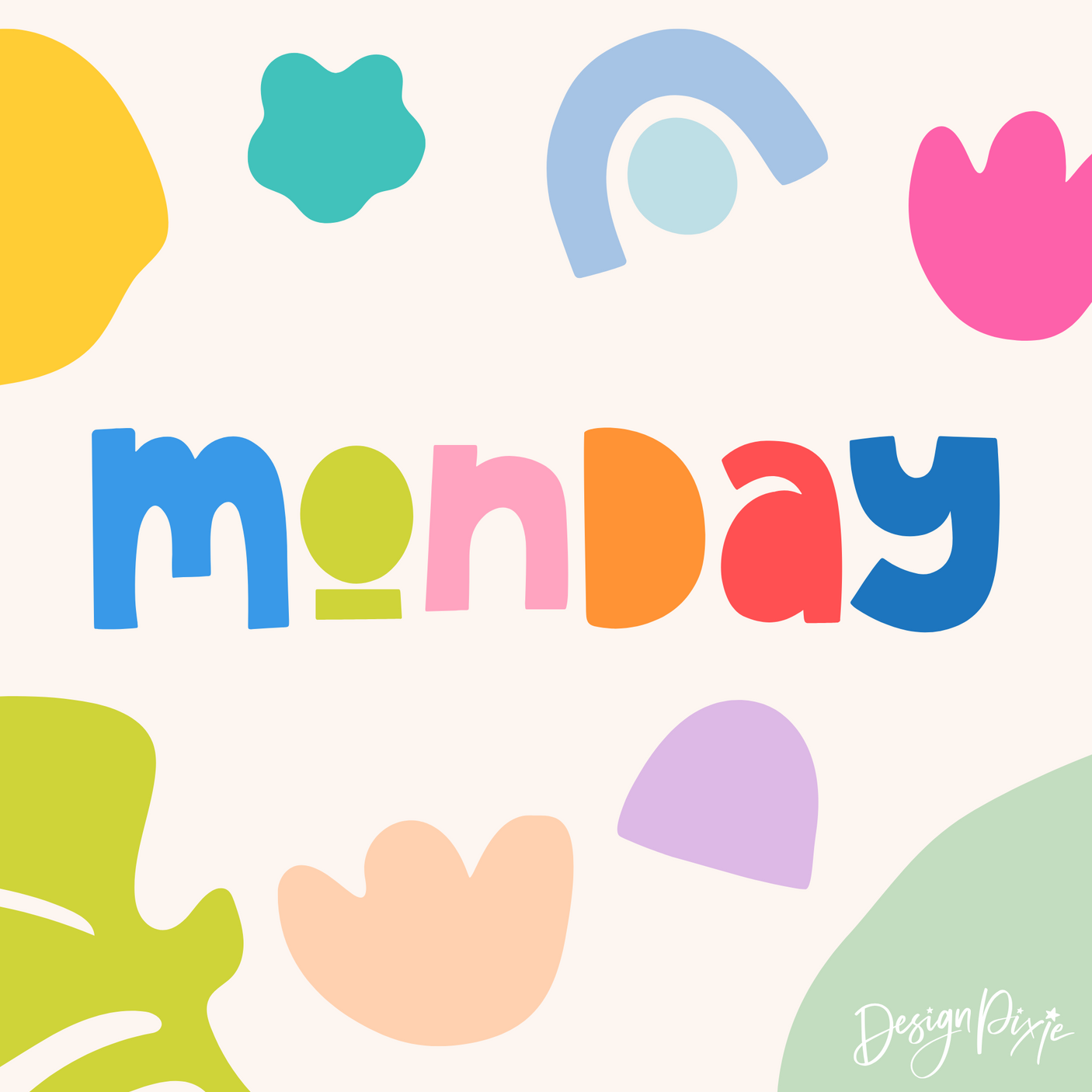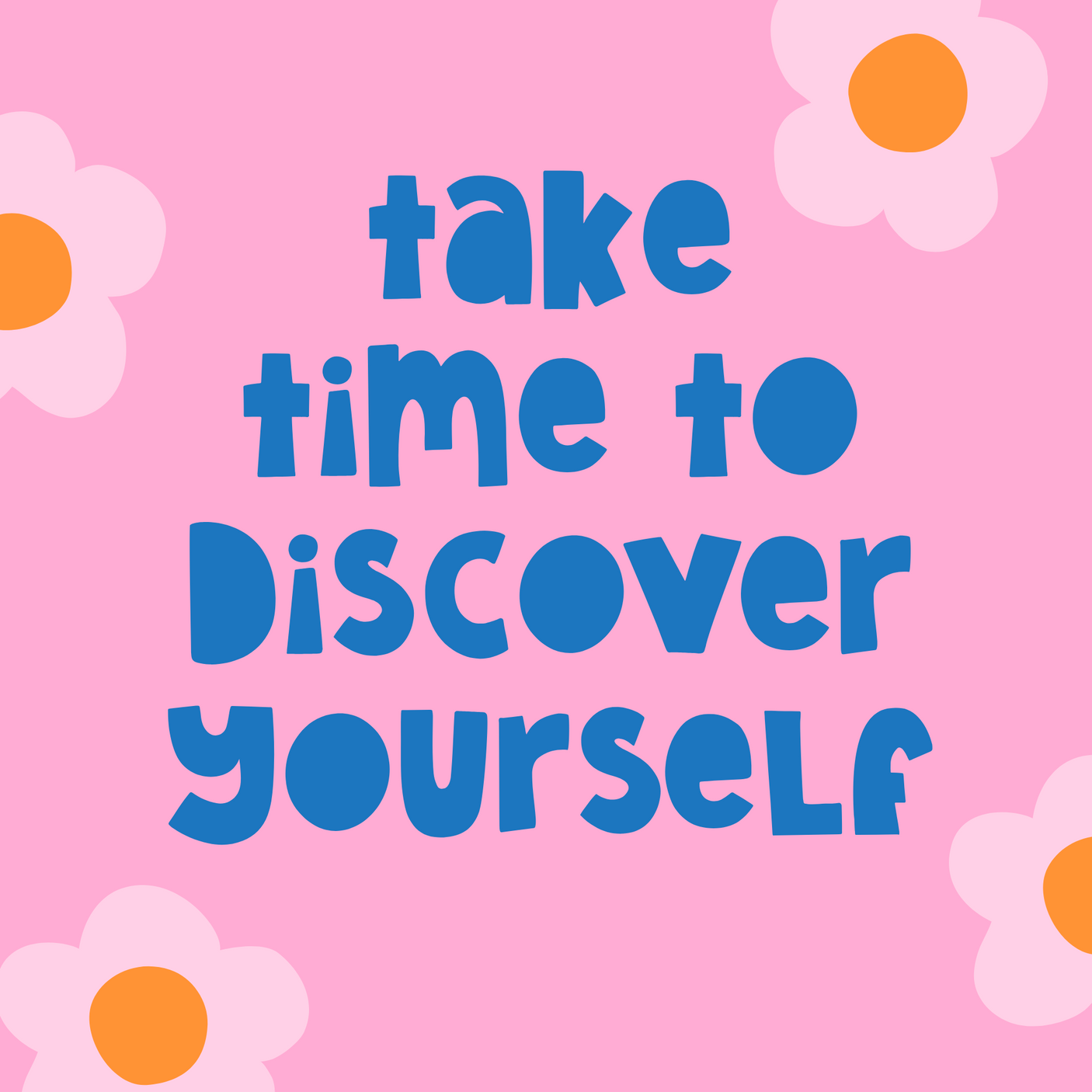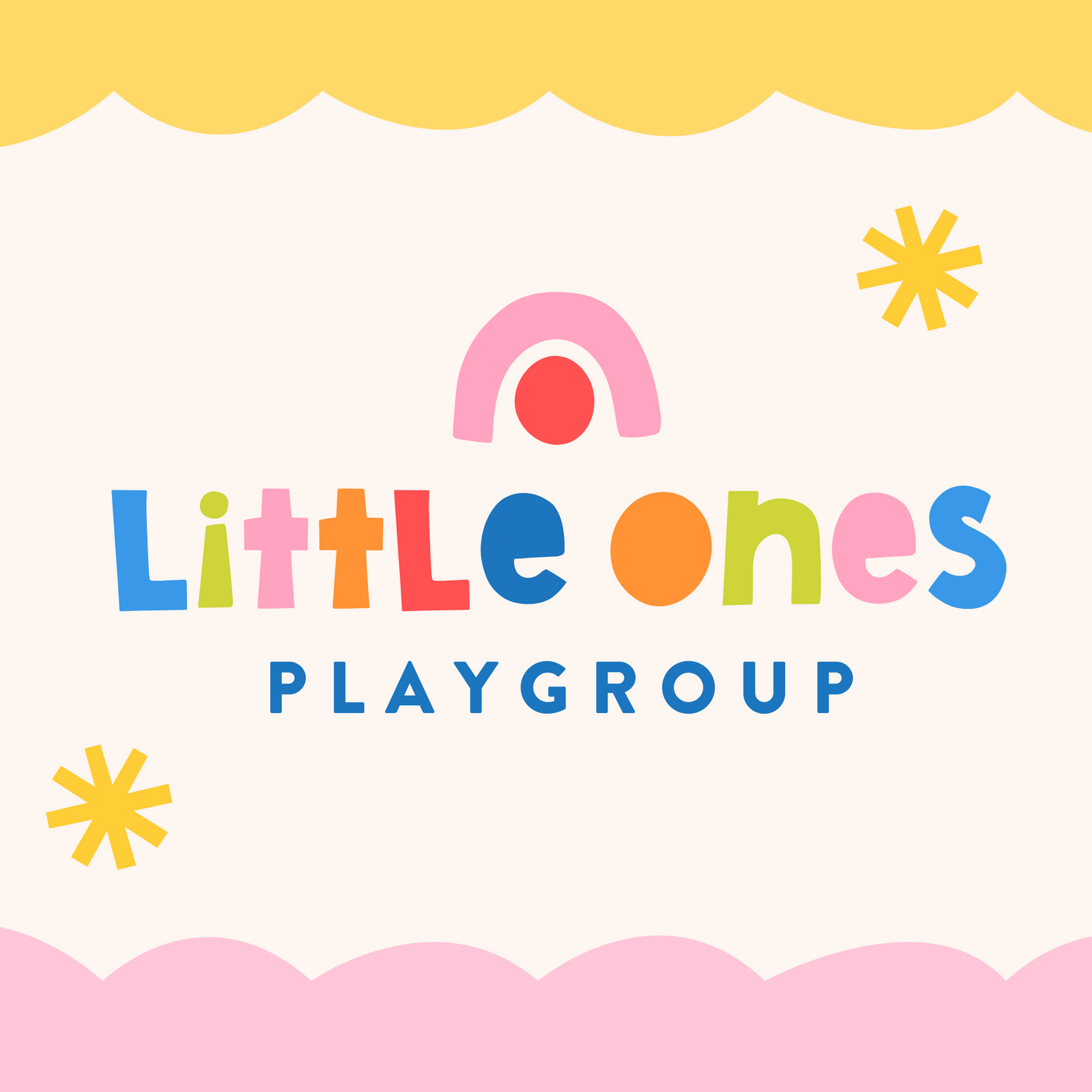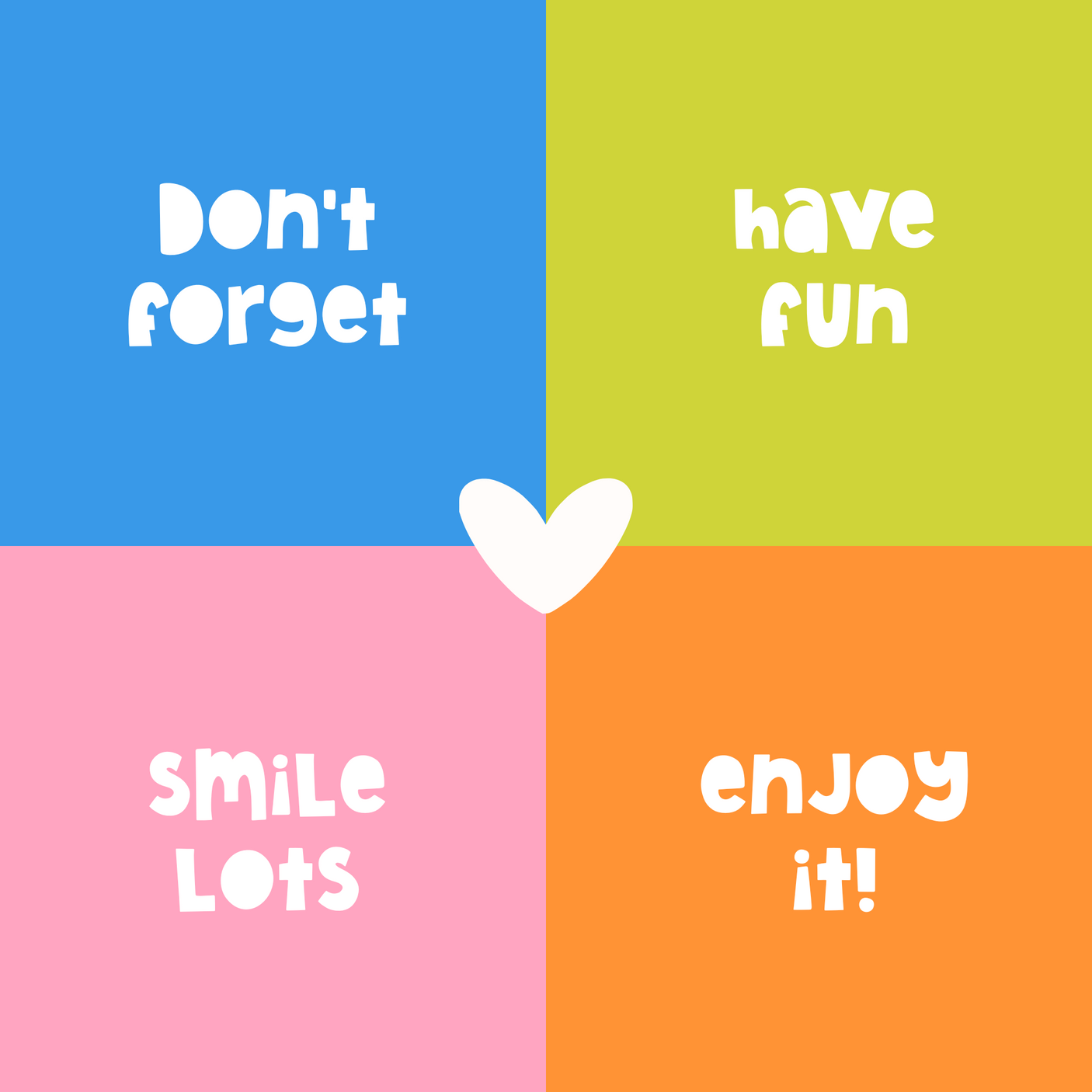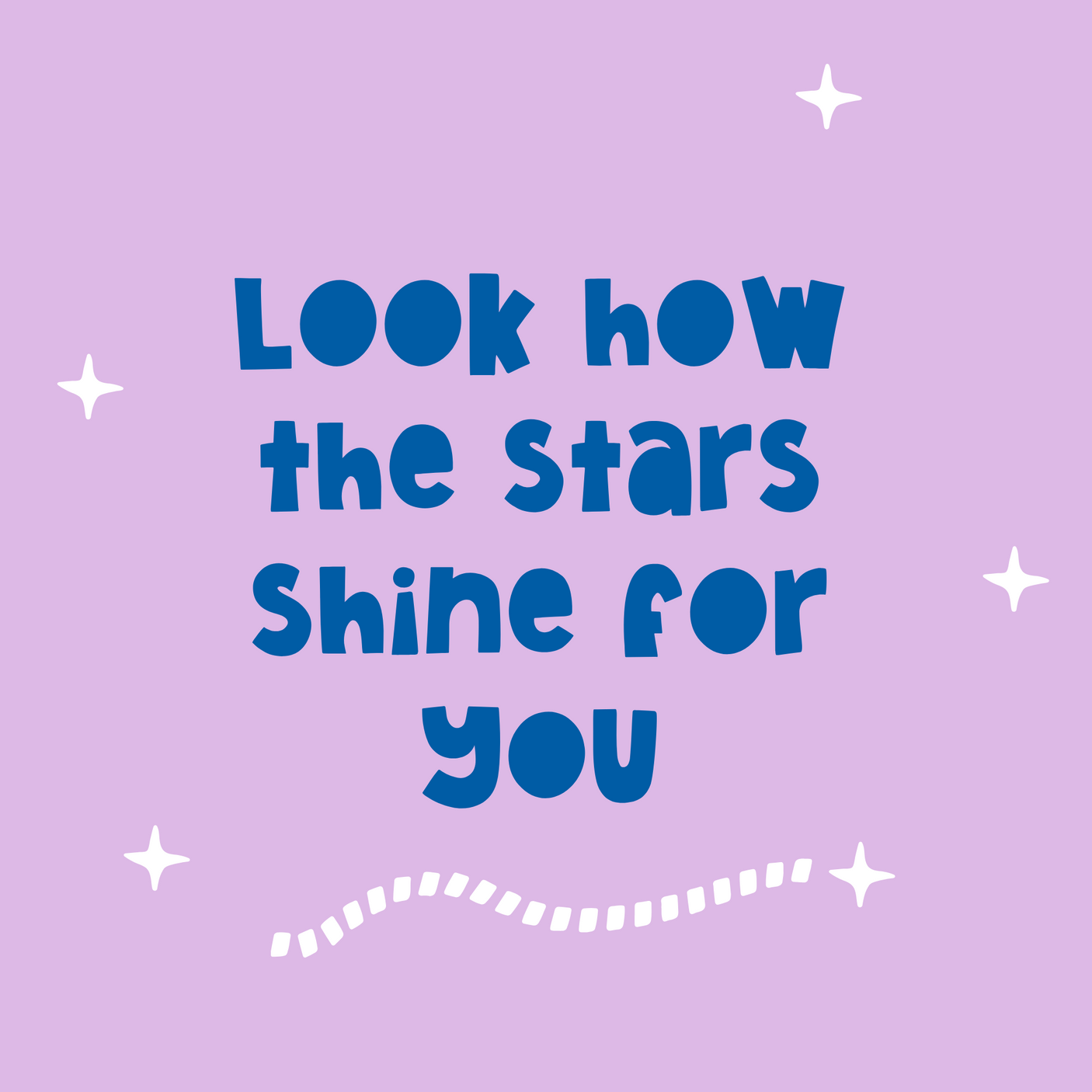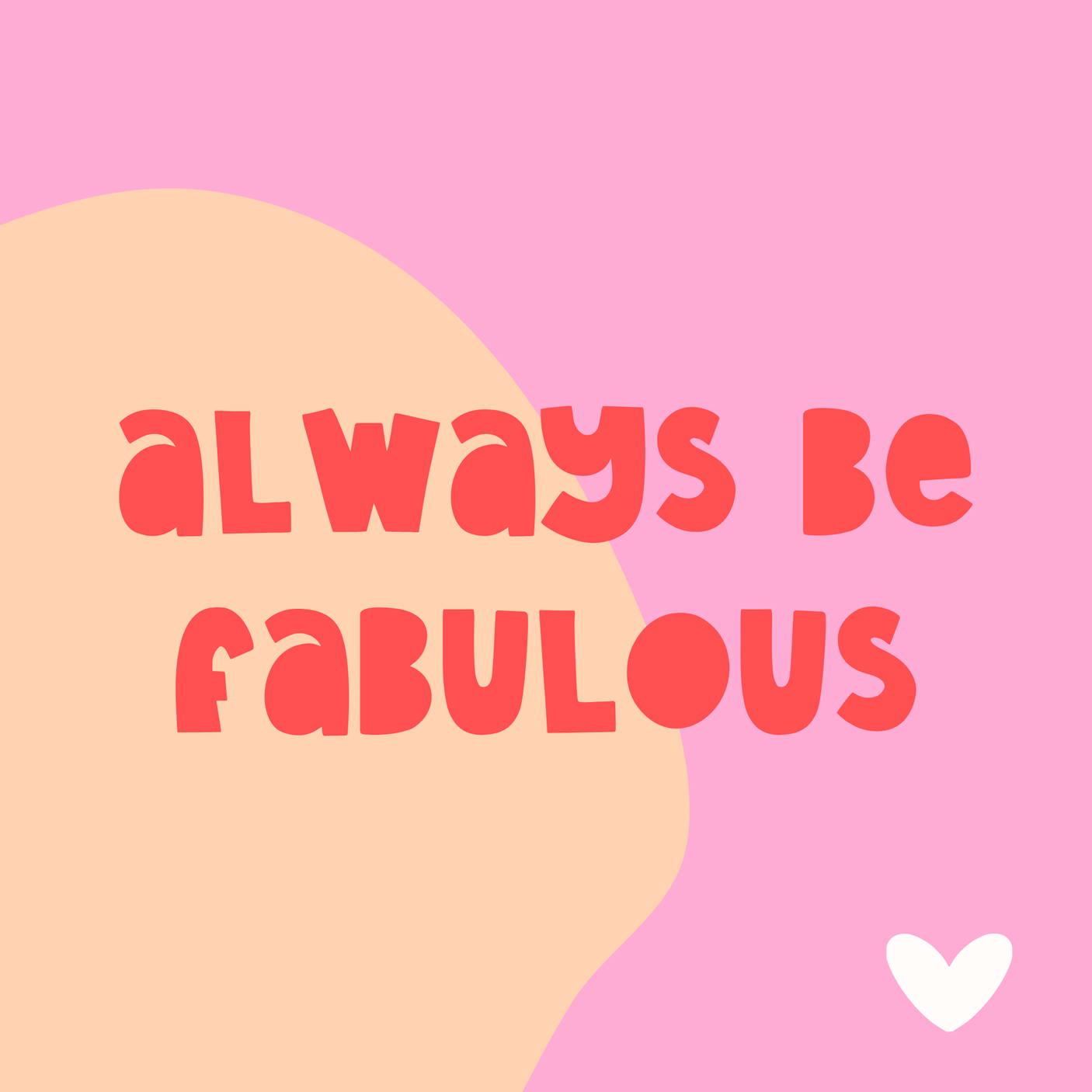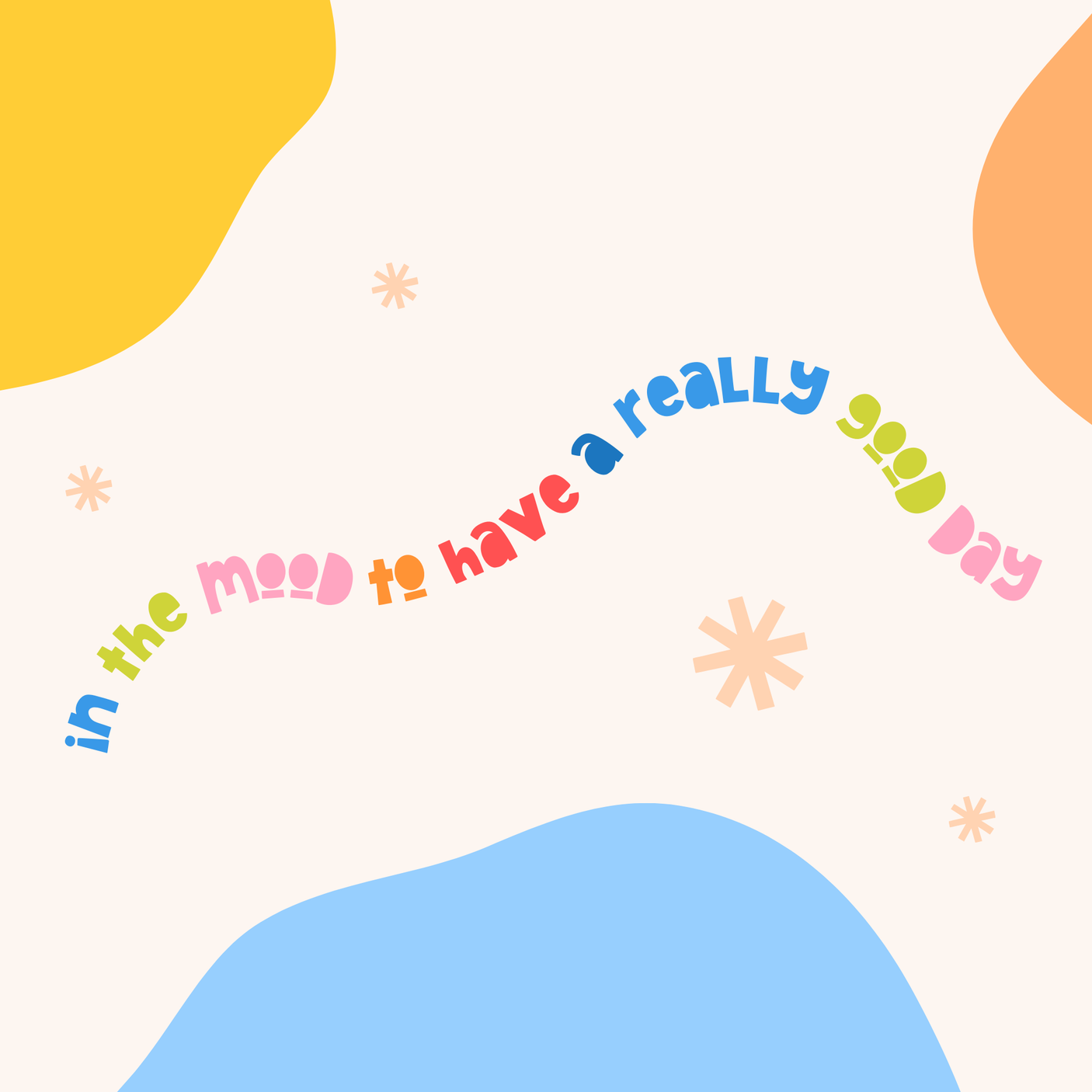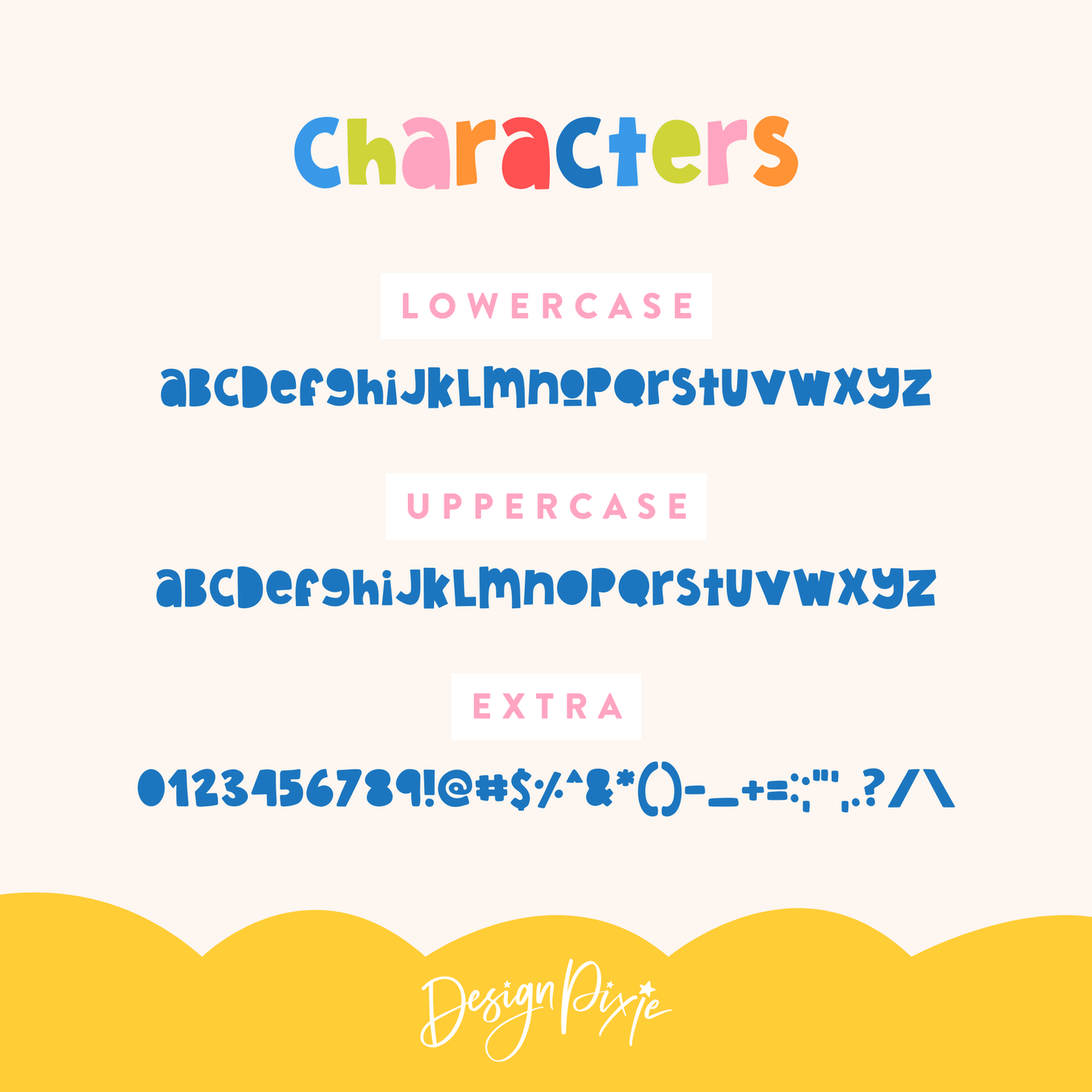
Monday Font
Meet Monday font - bold, quirky and here to make your designs anything but boring! This playful papercut-style typeface is full of personality, with chunky, handcrafted characters that bring a fun and modern twist to any project. Whether you’re designing logos, product packaging, greeting cards, or social media graphics, Monday adds that eye-catching wow factor you’ve been looking for.
With a mix of abstract-style characters and unexpected curves, this font has an artsy, creative vibe that’s perfect for makers, small biz owners, and creatives who love standing out from the crowd. It’s super versatile too - use it for Cricut projects, printables, stickers, or even bold Instagram posts.